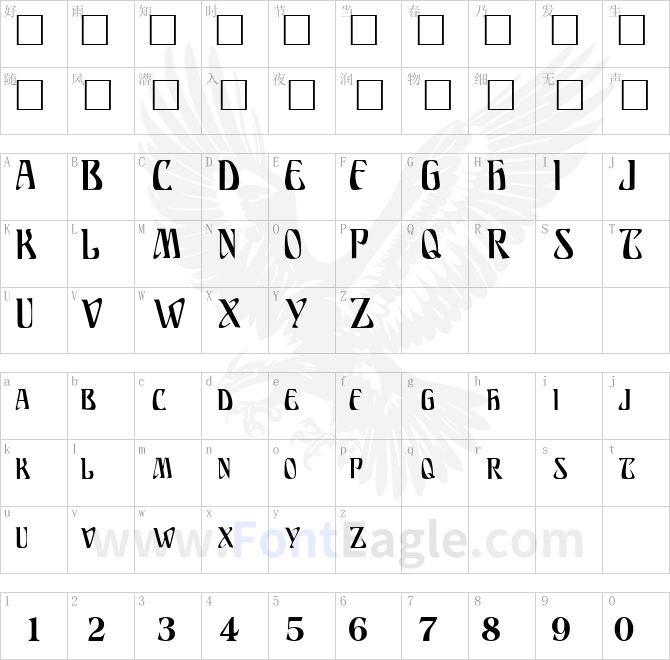
BillionsFont-Regular-ttcon is a great font, widely used in graphic design, single-page menu design, poster design and other fields, and is deeply loved by designers.BillionsFont-Regular-ttcon download.